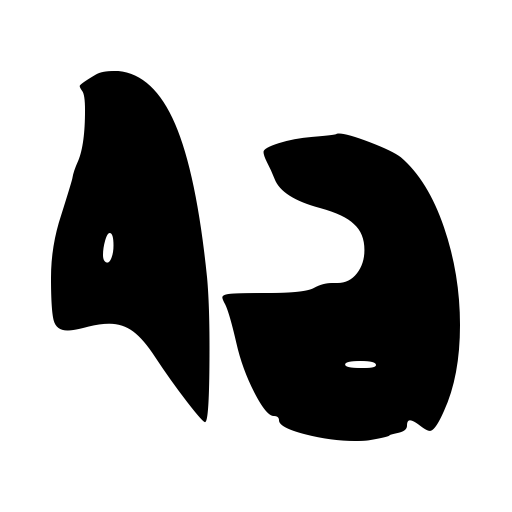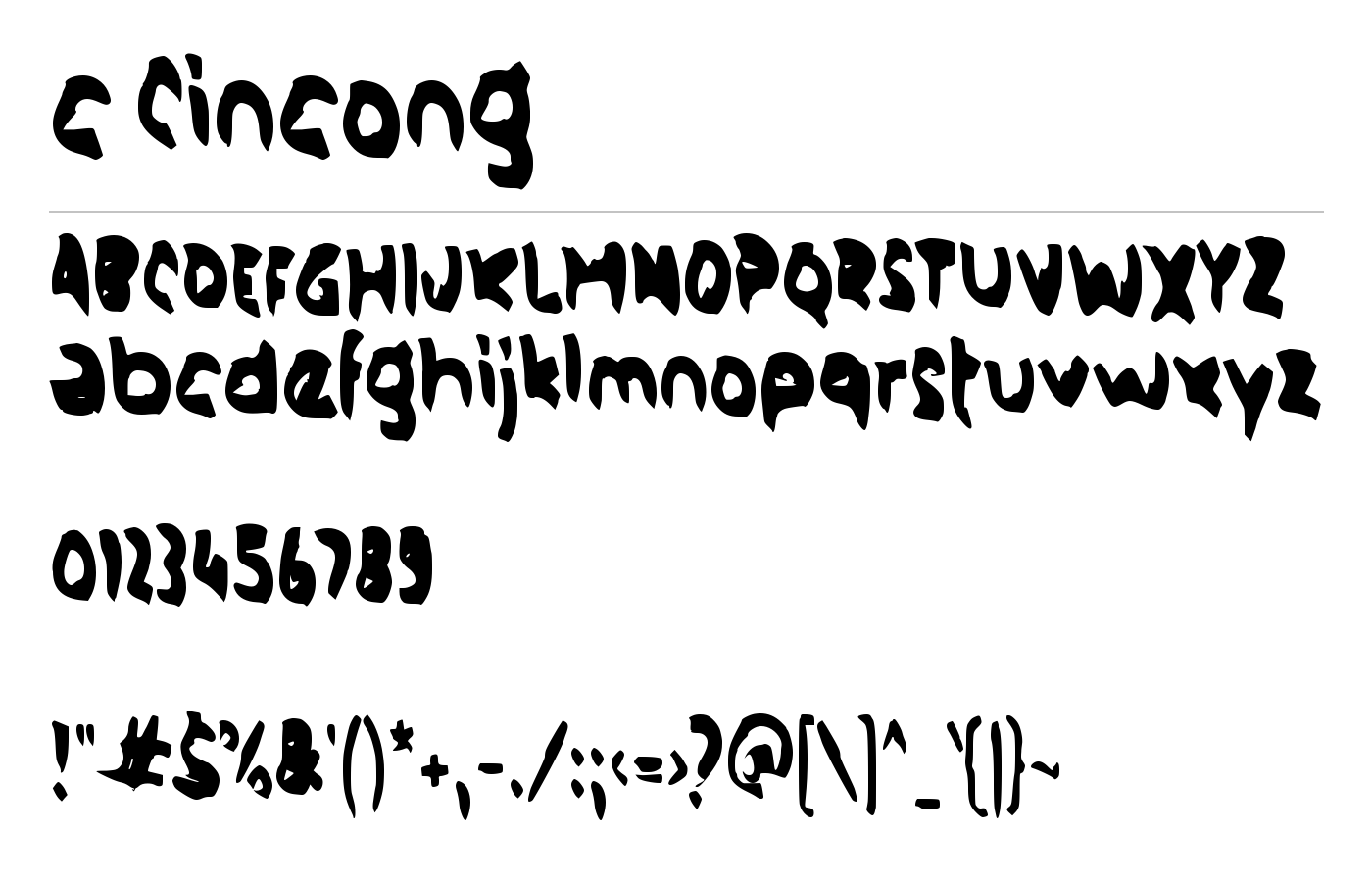
c Cincong is a bold and playful display font with irregular, organic shapes that give it a quirky, hand-crafted feel. Its chunky, somewhat whimsical letterforms make it ideal for eye-catching headlines, creative branding, and unique posters where a fun and informal vibe is desired. This font works best in contexts that want to stand out with personality and artistic flair rather than traditional elegance or formality.
c Cincong Font
About c Cincong Font